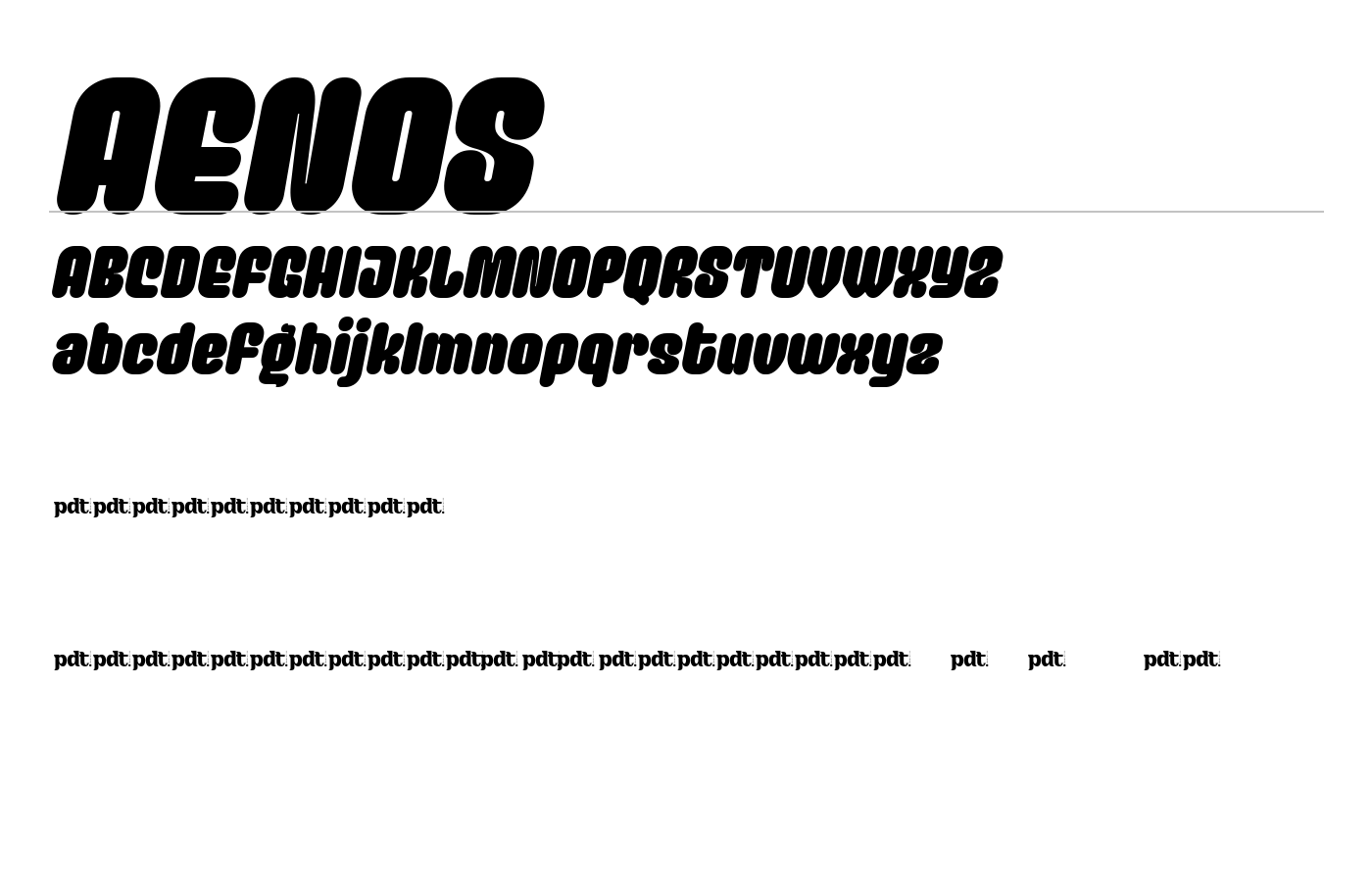
AENOS is a bold, condensed sans serif font with rounded edges and a playful, modern character. Its thick strokes and high x-height give it strong visual impact, making it ideal for headlines, logos, and branding that need to grab attention with a friendly yet dynamic vibe. This font works especially well in creative and casual contexts where a bold and approachable style is desired.
AENOS Font
About AENOS Font